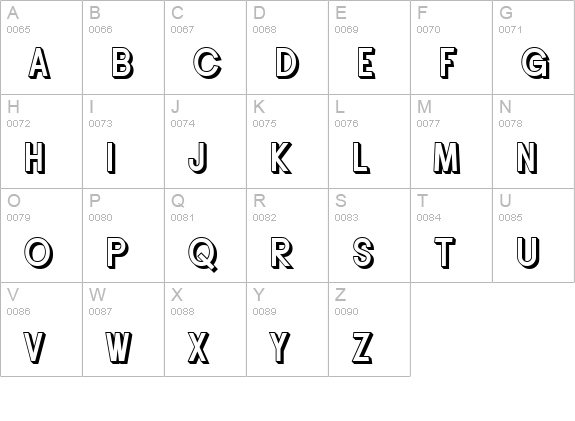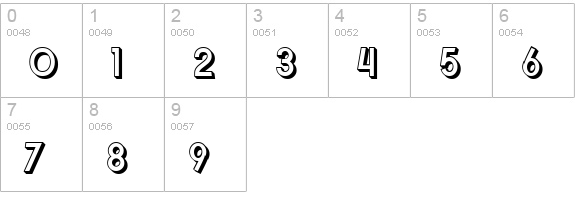
SF Buttacup Lettering Shaded Font Details
Introducing SF Buttacup Lettering Shaded font, a stunning and captivating typeface that will instantly elevate your design projects. With its unique blend of boldness and elegance, this font is perfect for adding a touch of sophistication to any creative endeavor. The SF Buttacup Lettering Shaded font features beautifully crafted letterforms with delicate shading, giving each character a three-dimensional effect that is visually striking. Its intricate details and refined curves make it a standout choice for headlines, logos, posters, and more. What makes SF Buttacup Lettering Shaded font even more remarkable is that it is available for free download at FontsMarket.com. This means that you can immediately access and utilize this remarkable font without any cost or hassle. Whether you're a professional graphic designer or an aspiring artist, this font is a valuable addition to your toolkit. With its wide range of characters and extensive language support, SF Buttacup Lettering Shaded font offers endless possibilities for creativity. Its versatility allows it to seamlessly adapt to various design styles, making it suitable for both modern and vintage-inspired projects. The legibility and readability of SF Buttacup Lettering Shaded font are exceptional, ensuring that your message is conveyed effortlessly and effectively. Whether used for body text or display purposes, this font guarantees clear communication and a visually pleasing aesthetic. Don't miss the opportunity to enhance your design projects with the SF Buttacup Lettering Shaded font. Download it for free at FontsMarket.com and unleash your creativity with this remarkable typeface. Elevate your designs, captivate your audience, and make a lasting impression with this striking and freely available font.